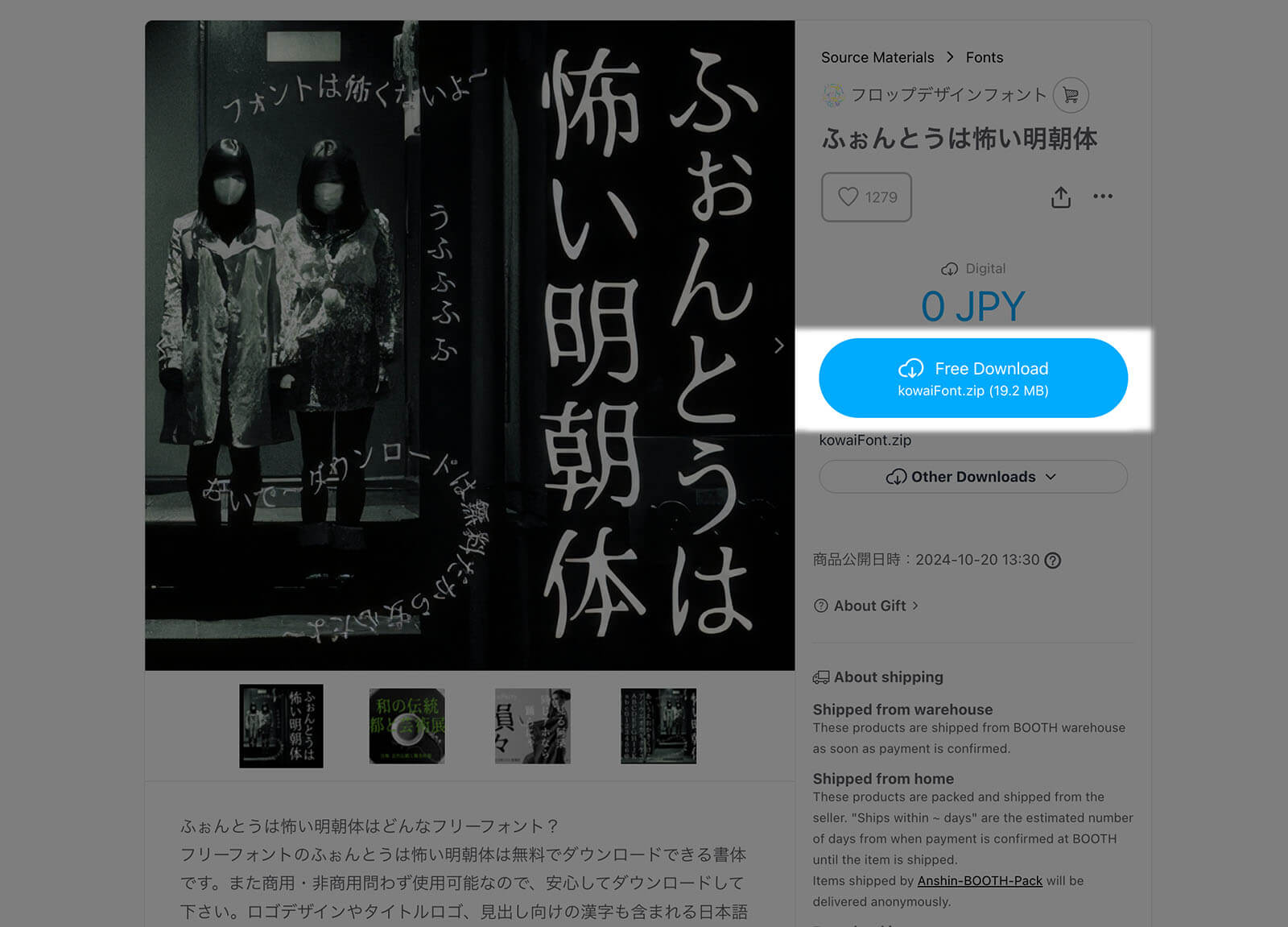
Really Scary Minchotai
Really Scary Minchotai (ふぉんとうは怖い明朝体) is a scary version of the Mincho font. The font characters were distorted to look wavy and shaky which create the horror feel like the traditional Japanese horror movie. However, by changing the color mood, it might turn out to be not horror at all.
- Hiragana and Katakana
- Kanji (JIS Level 2)
- Alphanumeric
- Symbols and Punctuation